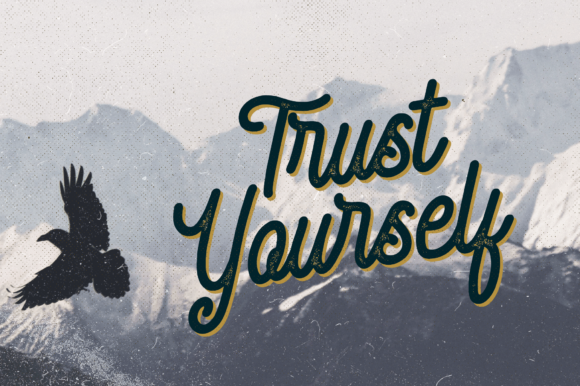
Bartond Script Font: The Perfect Choice for Your Creative Projects
In the world of typography, a good font can make all the difference in the success of a design project. Whether you’re a professional designer, a crafty DIY enthusiast, or a small business owner, finding the right font can be a daunting task. That’s where Bartond Script Font comes in – a versatile and stylish font that’s perfectly suited for a wide variety of projects!
What is Bartond Script Font?
Bartond Script Font is a beautiful, hand-crafted script font that’s designed to add a touch of elegance and sophistication to your designs. With its flowing lines, intricate details, and classic charm, this font is perfect for creating stunning visual content that stands out from the crowd.
Key Features of Bartond Script Font
- Unique and Elegant Design: Bartond Script Font boasts a distinctive and refined design that’s sure to capture the attention of your audience.
- Highly Versatile: This font is perfect for a wide range of projects, from wedding invitations and branding materials to social media graphics and website headers.
- Easy to Read: Despite its ornate details, Bartond Script Font is surprisingly easy to read, making it a great choice for body text as well as headlines.
- Extensive Character Set: This font includes a vast character set, covering multiple languages and featuring a range of punctuation marks, symbols, and special characters.
What Projects is Bartond Script Font Suited For?
Bartond Script Font is a versatile font that can be used for a wide variety of projects, including:
- Wedding and Event Invitations: Add a touch of romance and sophistication to your wedding invitations, save-the-dates, and other event materials.
- Branding and Packaging: Use Bartond Script Font to create eye-catching logos, labels, and packaging materials that reflect your brand’s personality.
- Social Media Graphics: Elevate your social media presence with stunning graphics, headers, and quotes that showcase your brand’s style.
- Website Headers and Footers: Add a touch of elegance to your website’s headers, footers, and other design elements.
- Stationery and Print Materials: Use Bartond Script Font to create beautiful stationery, business cards, and other print materials that reflect your brand’s personality.
Why Choose Bartond Script Font?
With so many fonts available, why choose Bartond Script Font? Here are just a few reasons:
- Unique and Memorable: Bartond Script Font is a one-of-a-kind font that’s sure to make your designs stand out from the crowd.
- High-Quality Design: This font is crafted with attention to detail and a focus on quality, ensuring that your designs look professional and polished.
In conclusion, Bartond Script Font is a versatile and stylish font that’s perfectly suited for a wide variety of projects. With its unique design, extensive character set, and ease of use, this font is a great choice for designers, crafters, and small business owners looking to add a touch of elegance and sophistication to their designs. So why wait? Try Bartond Script Font today and see the difference it can make in your creative projects!